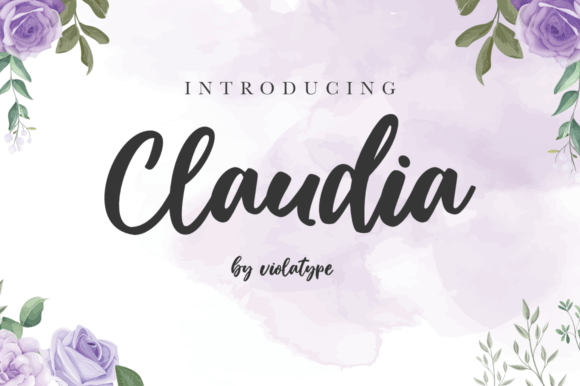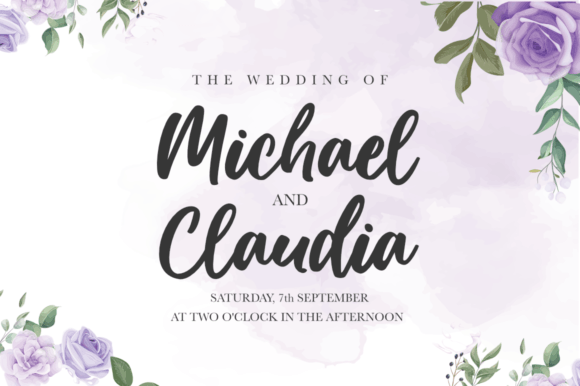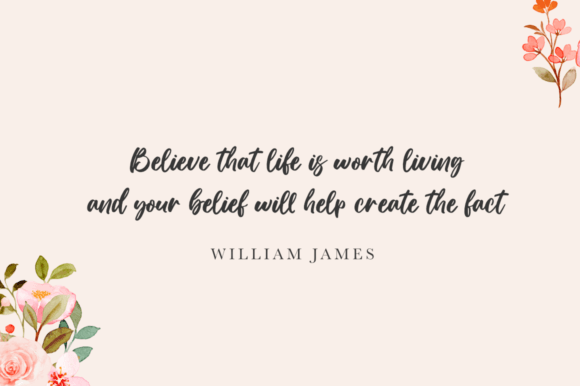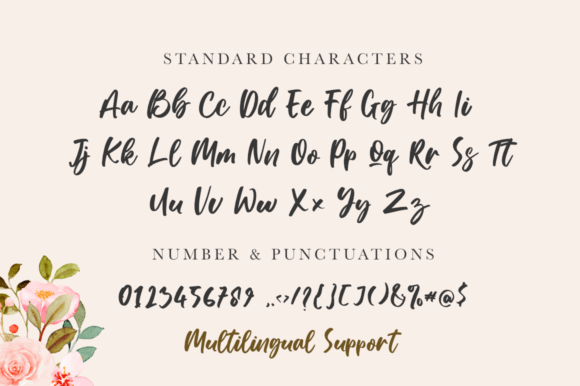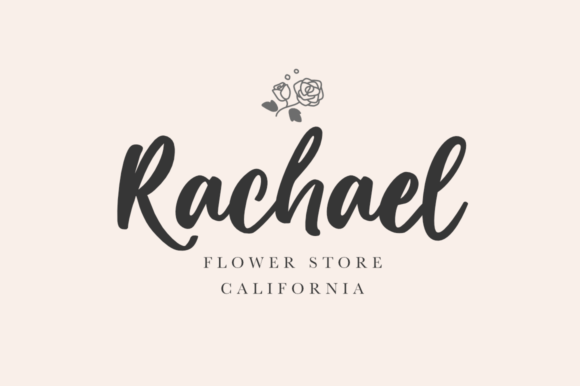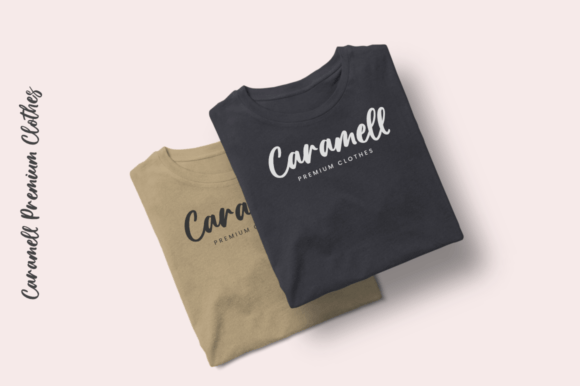
Claudia Font
About Claudia Font
Introducing “Claudia,” a beautiful script font meticulously crafted using hand strokes and stunning touches. This font is designed to complement your designs, creations, and future projects with its elegant and graceful appearance.
The beauty of “Claudia” lies in its flowing and handcrafted strokes, making it a perfect choice for a variety of applications. Whether you’re working on magazines, wedding invitations, quotes, T-shirts, or other creative projects, “Claudia” adds a touch of sophistication and charm to your text.
Incorporate “Claudia” into your designs and experience how it enhances the overall aesthetic with its elegant and handcrafted look. This font is versatile, making it suitable for a wide range of design applications where a beautiful and scriptive typeface is desired.
In summary, “Claudia” is more than just a font; it’s a creative asset designed to bring beauty and elegance to your designs. Download “Claudia” now and explore how it can elevate your magazines, wedding invitations, quotes, T-shirts, and various other creative projects. With its stunning hand strokes and touches, this font is ready to add a touch of sophistication to your creative endeavors.